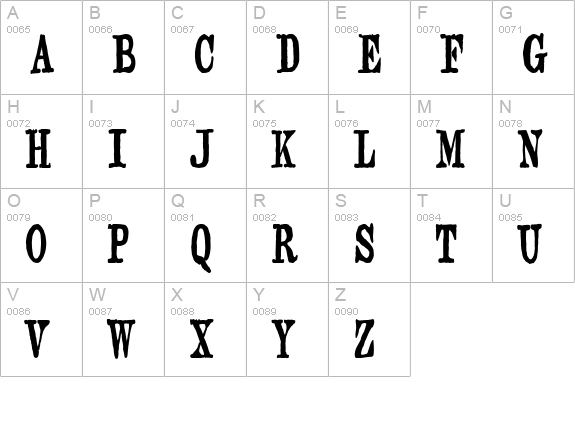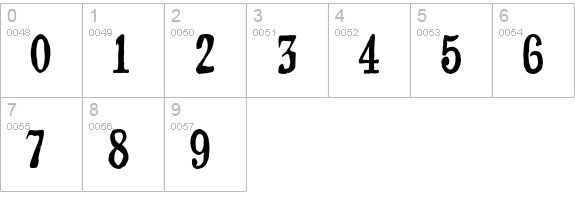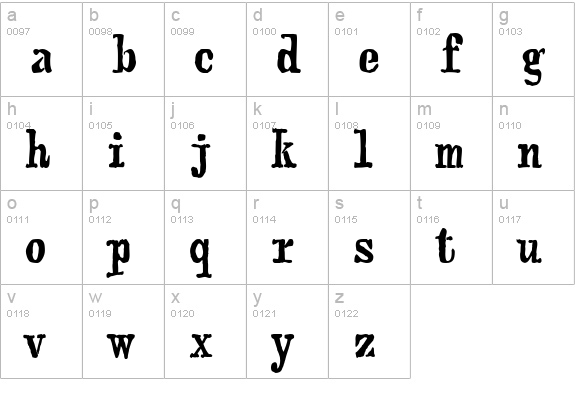
webster Font Details
Introducing Webster Font - a versatile and elegant typeface perfect for a wide range of design projects. With its classic yet contemporary style, Webster Font exudes sophistication and professionalism. Its clean lines and balanced proportions make it ideal for branding, advertising, editorial design, and beyond. Best of all, Webster Font is completely free to download at FontsMarket.com. Whether you're a designer looking to elevate your work or a business seeking a polished and distinctive look, Webster Font is sure to impress. Don't miss out on this opportunity to enhance your projects with this exceptional font. Download Webster Font today and take your designs to the next level!